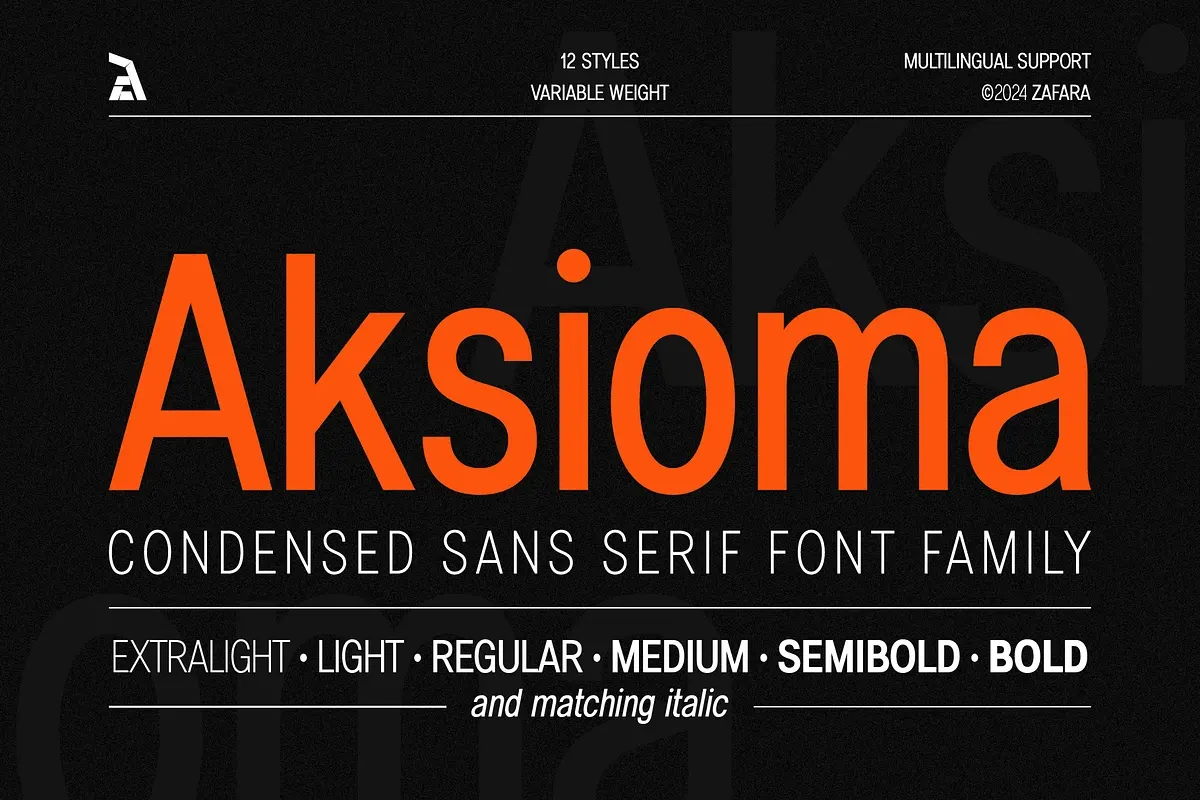
You must purchase this font for commercial use. However, you can download Aksioma - Condensed Sans Serif Font Free Download for testing purposes. Aksioma is a sleek and modern condensed sans serif font designed for high-impact designs. With its narrow letterforms and bold appearance, this font is perfect for headlines, logos, posters, and branding that require strong visibility while conserving space.
Its clean lines and geometric structure make Aksioma ideal for modern and minimalist designs, ensuring that your message stands out clearly and confidently. Whether you’re working on a corporate identity, event posters, or a stylish website, Aksioma adds a contemporary touch to your typography.